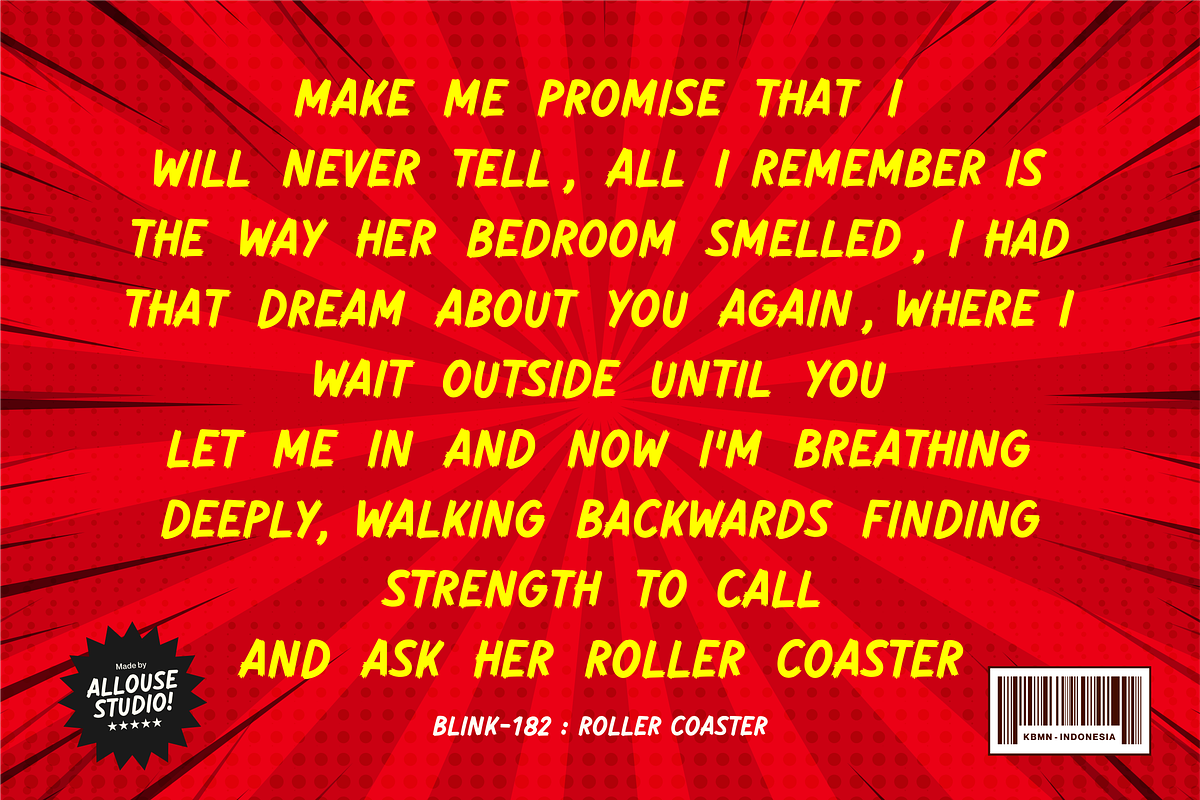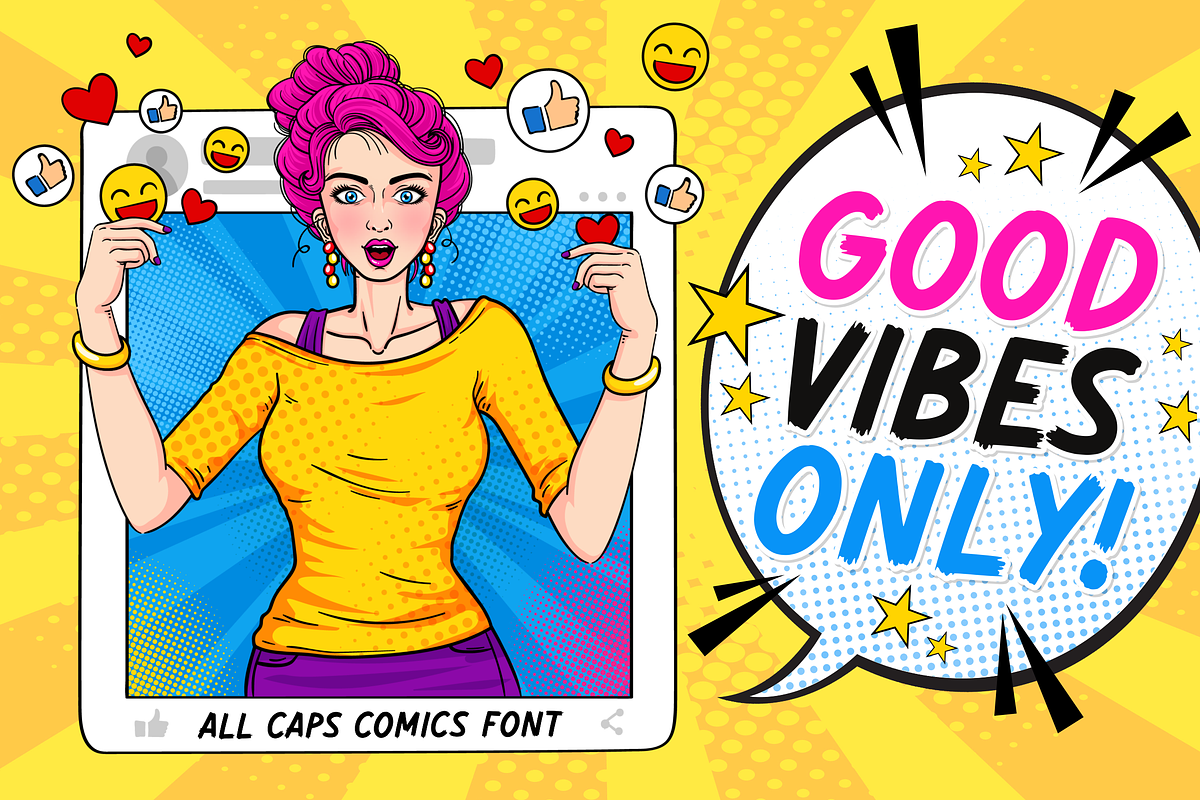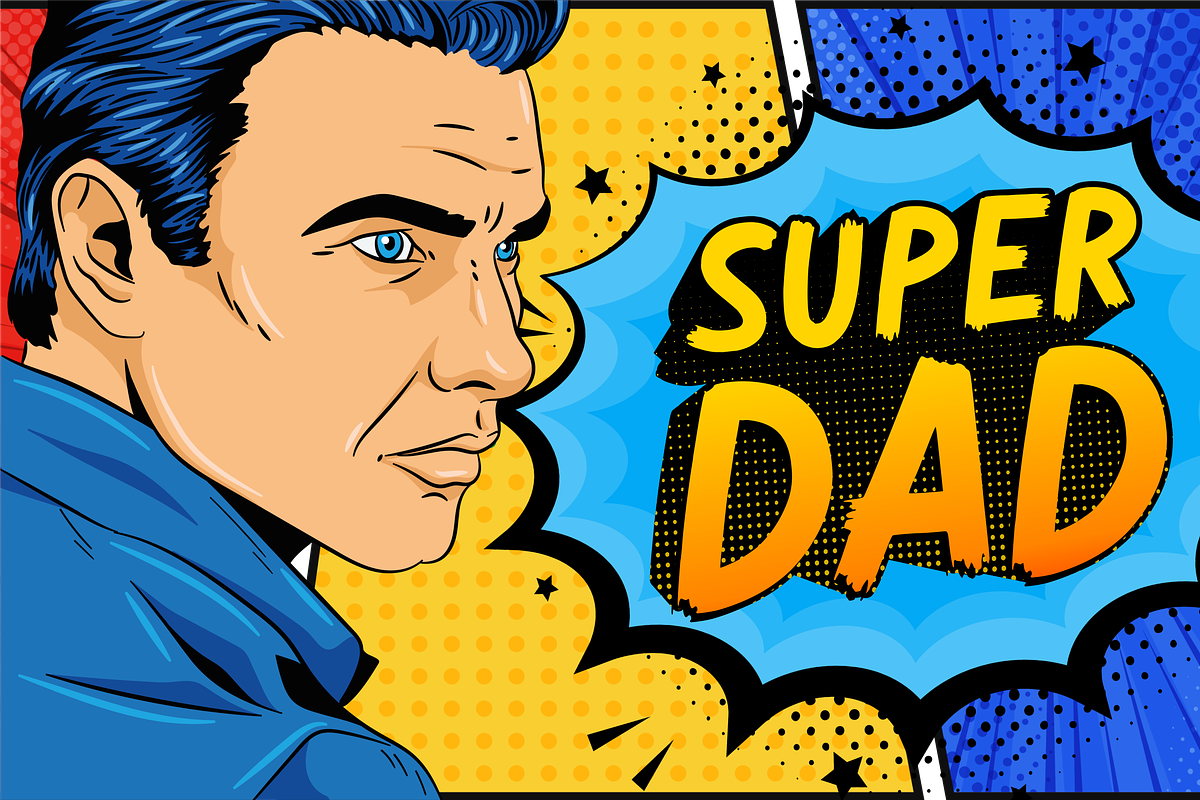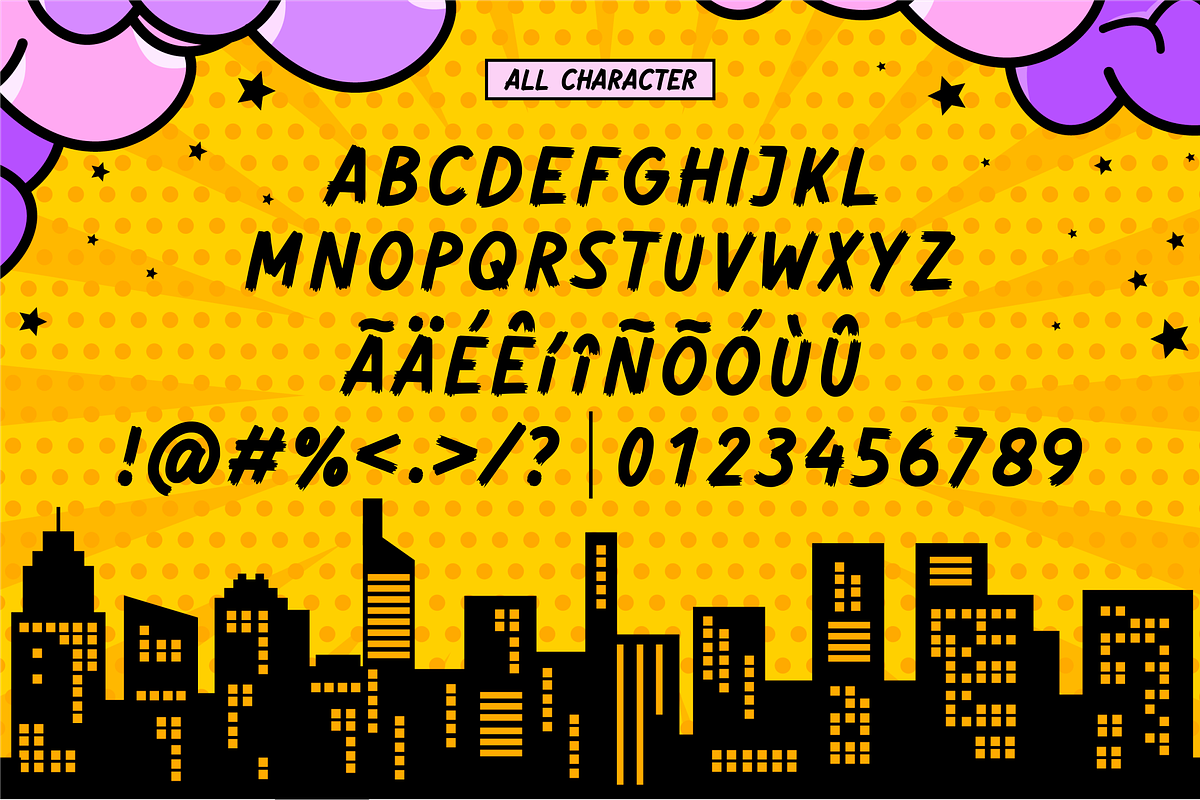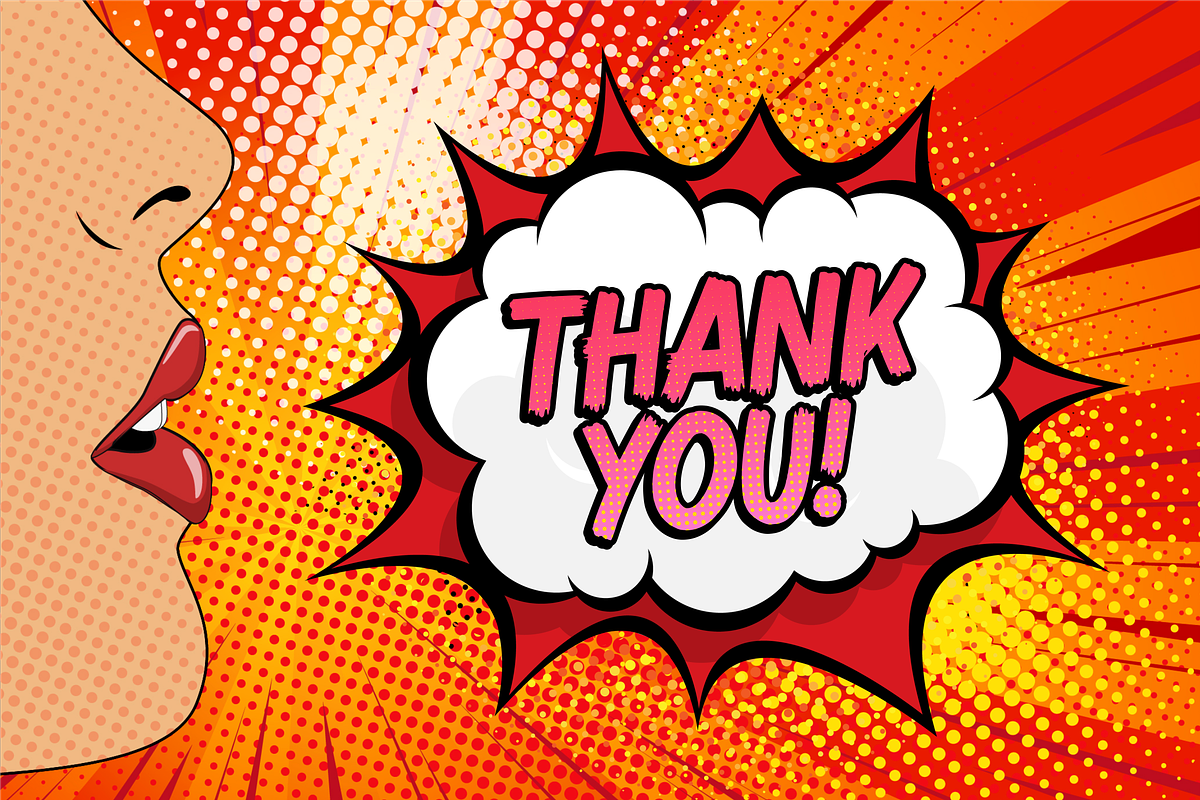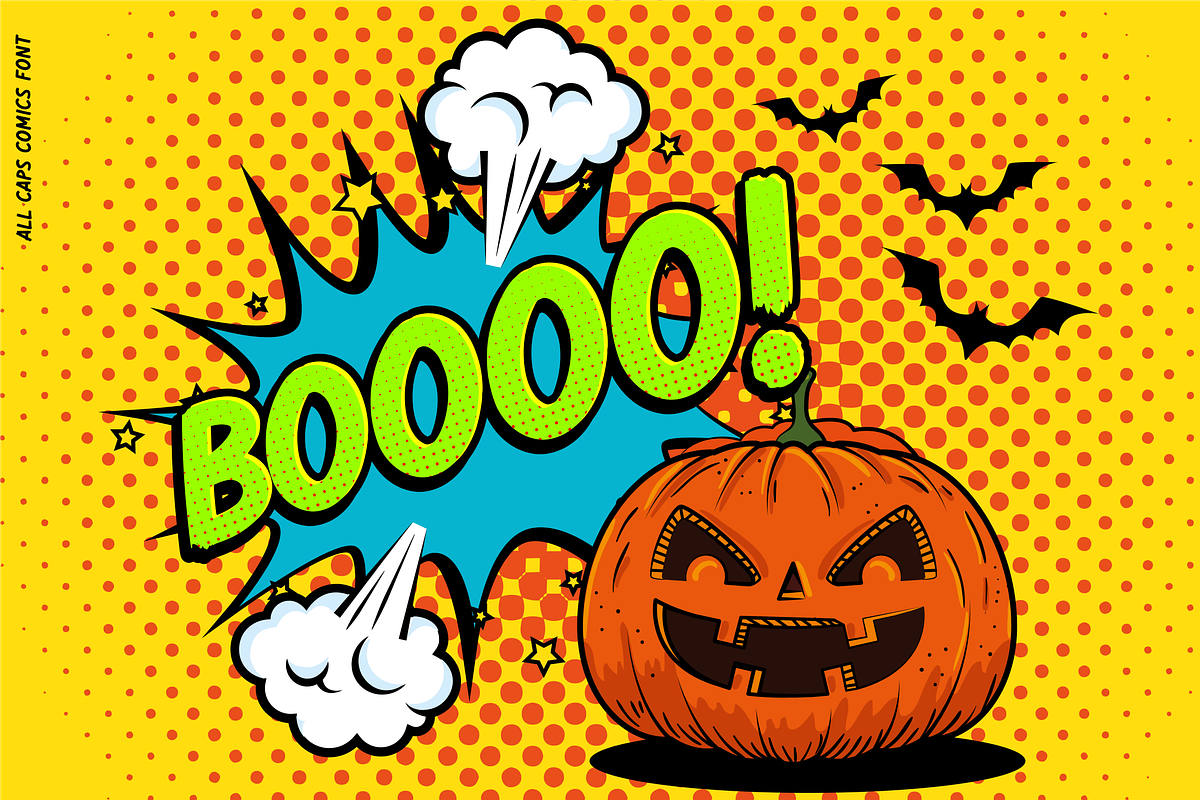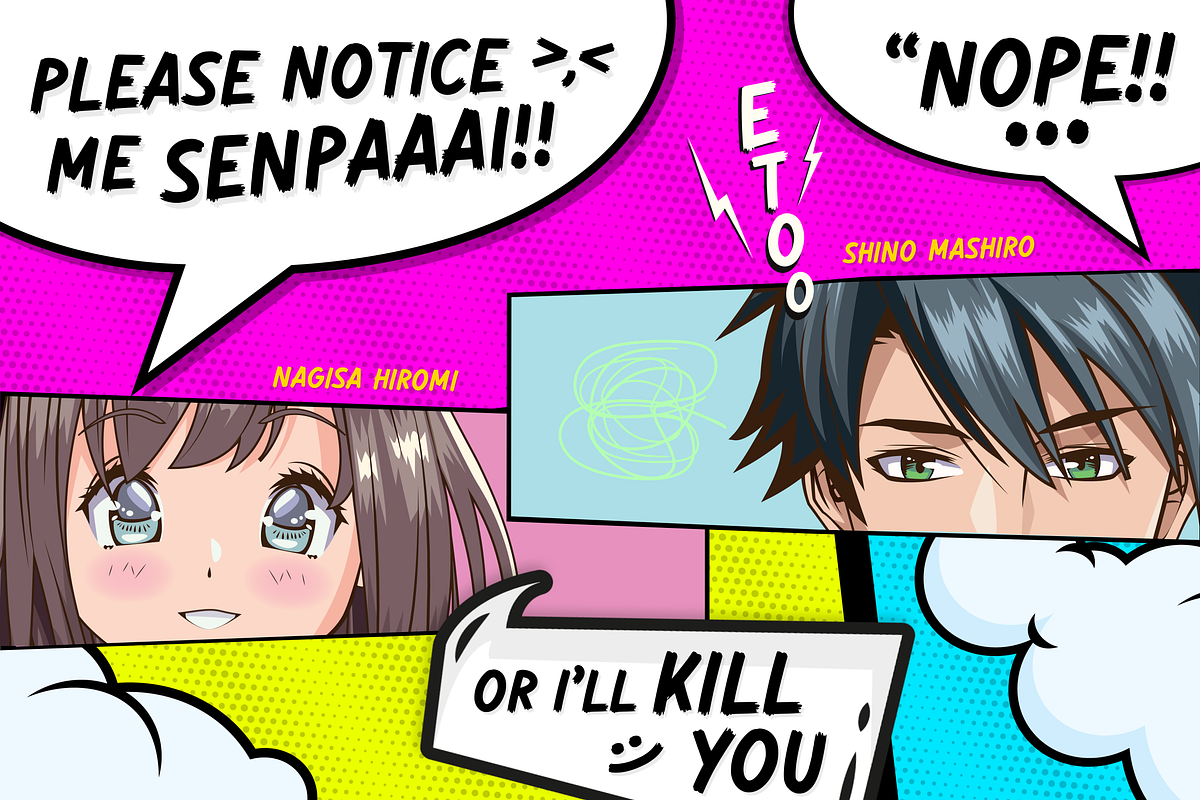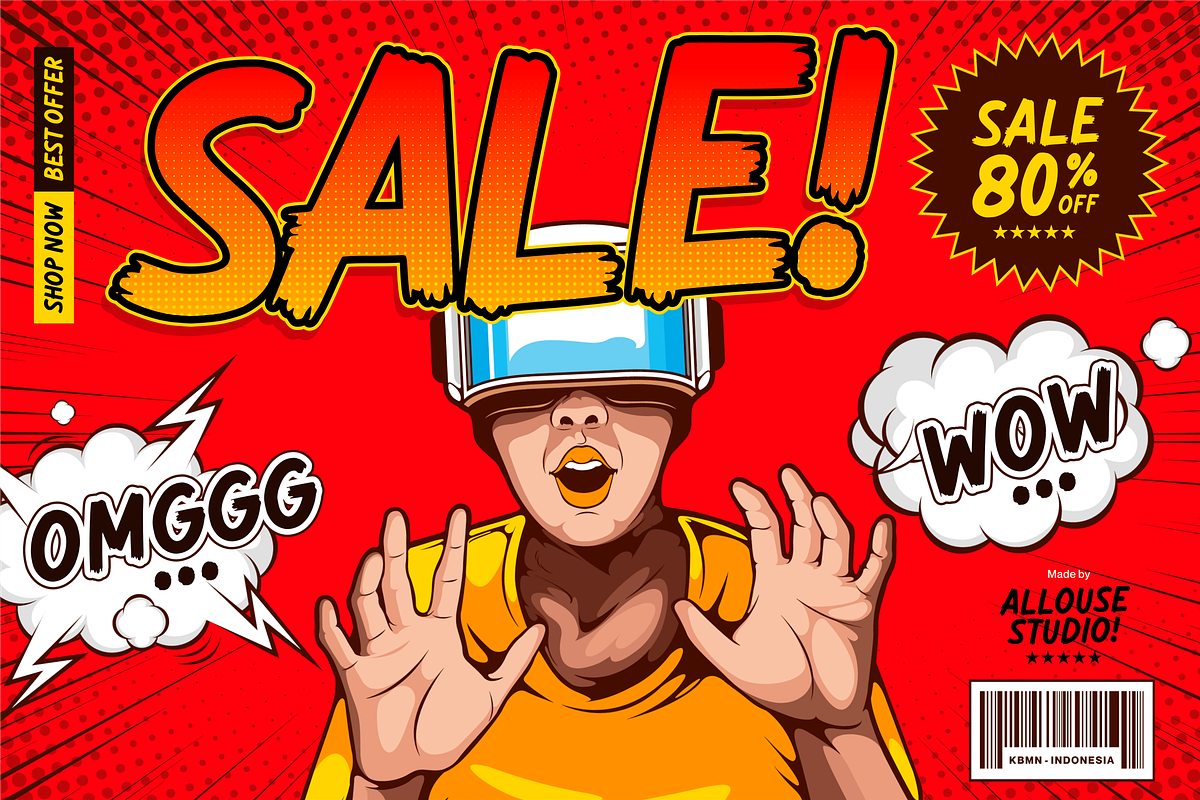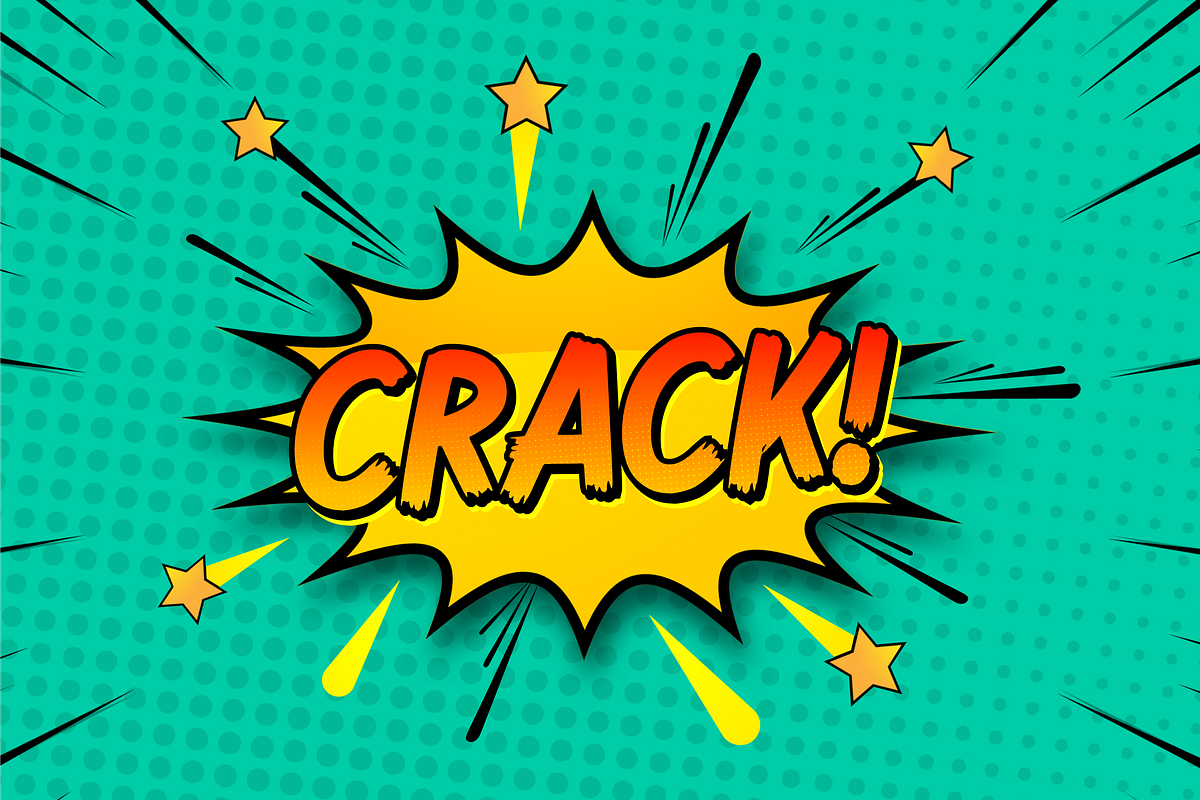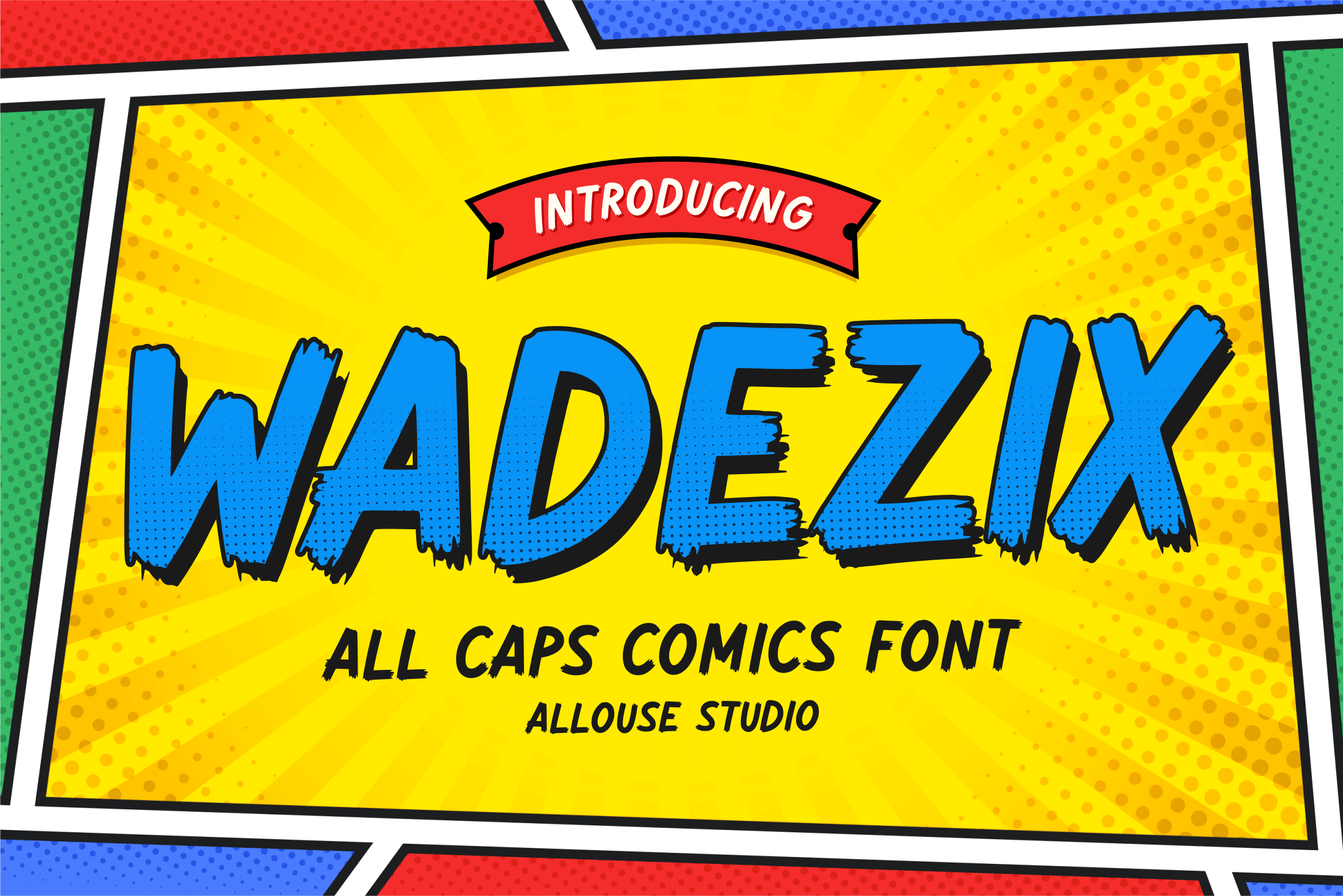
Wadezix A All Caps Comics Font
Proudly Presenting, Wadezix A All Caps Comics Font.
Wadezix is perfect for any titles, logo, product packaging, branding project, megazine, social media, wedding, or just used to express words above the background.
Wadezix also come with Multi-Lingual Support.